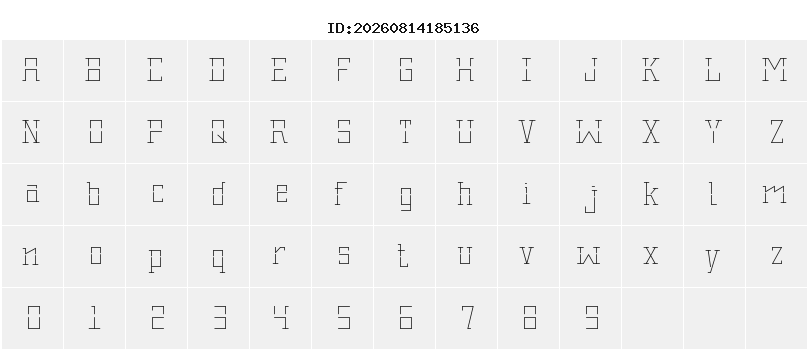
Stenciles Preview
• Font Name: Stenciles
• Full Font Name: Stenciles
About Stenciles.ttf
Stenciles.ttf is a modern, elegant sans-serif font designed for ultimate readability and visual harmony. Perfect for branding, headlines, web design, and print materials.